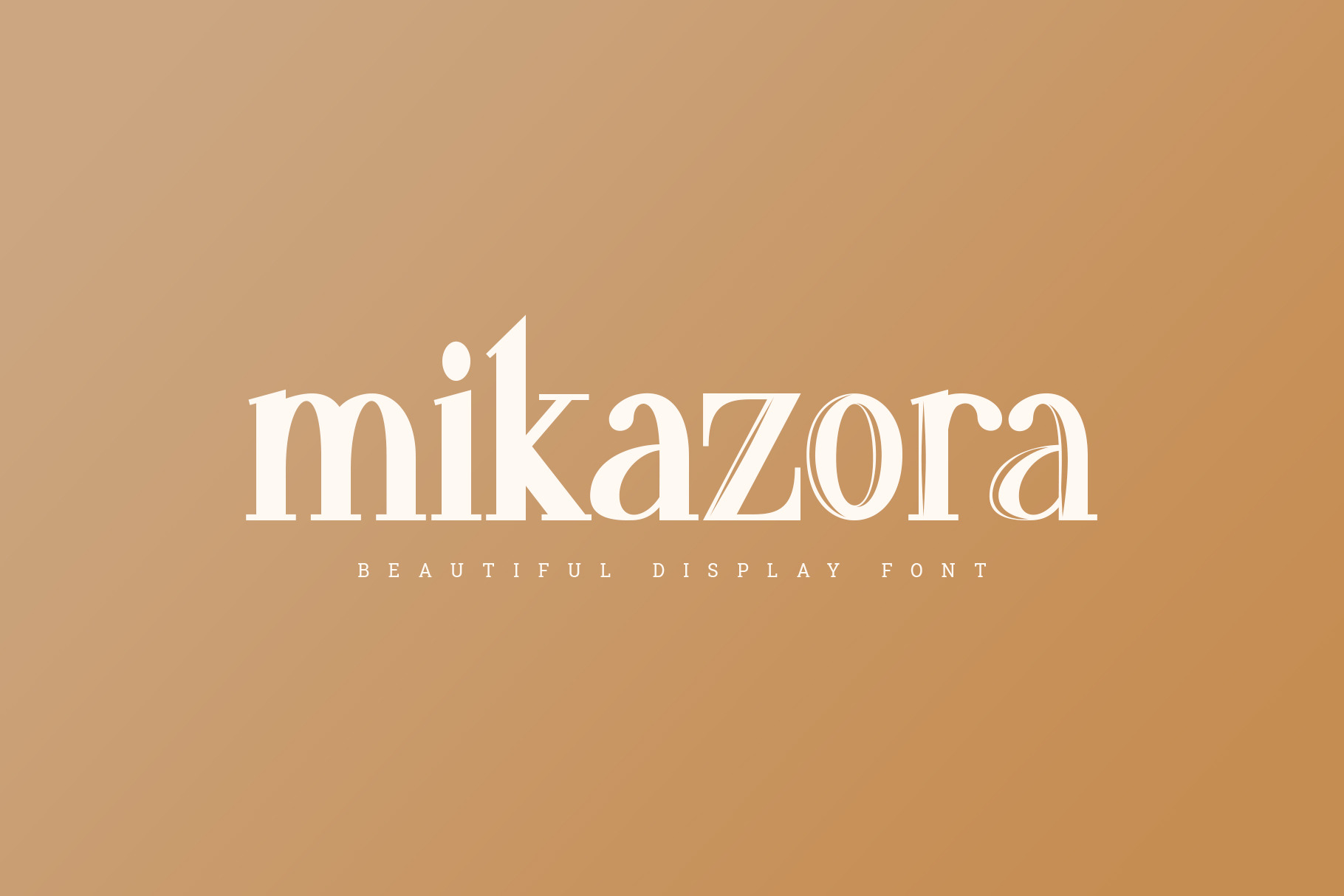
mikazora || Beautiful Display Font
mikazora is an imperfect, display serif font. It has a modern look with a free-spirit touch! There are a fun set of alternative letters to play with as well! mikazora include 2 style such as regular and inline/Sparkle.
mikazora is a gorgeous sans-serif typeface that is both classically elegant and inherently modern. Create beautiful wedding invitations, use it as an elegant solution for your next magazine layout, or choose mikazora for any graphics that require a sleek look with a vintage flair. mikazora is based on classic letter forms for publishing and display graphics, so you can give your text a classic, elegant feel, high-contrast lines and alternating thick and thin strokes.